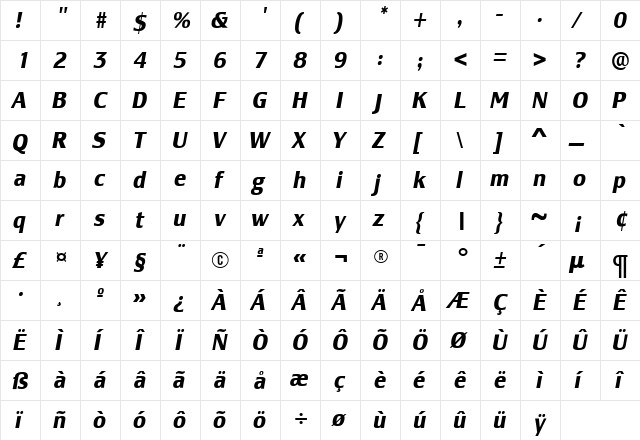
LesmoreBoldCondensedItalic Roman Font Preview
Design Context for LesmoreBoldCondensedItalic Typeface
LesmoreBoldCondensedItalic takes a measured approach to typography — its balanced proportions and neutral character make it a reliable workhorse for both digital and print work. The dynamic lean of this cut emphasises speed and emphasis in any layout. The heavy weight commands attention and anchors typographic hierarchies. Its narrow stance lets it pack a punch even in space-constrained designs.